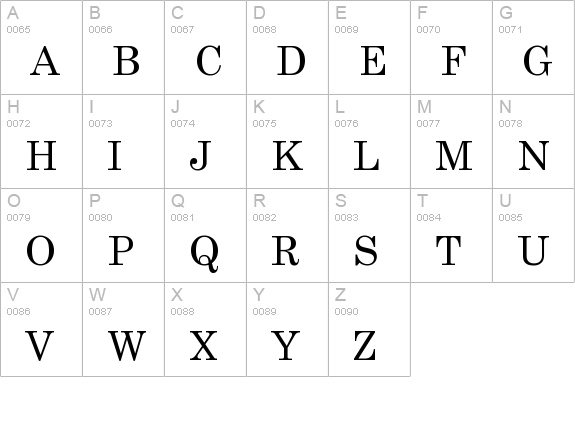
Century font is a timeless and elegant typeface that exudes sophistication and style. Its classic serif design makes it perfect for all types of projects, from formal invitations to professional documents. With its clean lines and balanced proportions, Century font is easy to read and adds a touch of class to any design. The best part? Century font is available for free download at FontsMarket.com. This means you can easily access this versatile and beautiful font for your projects without any cost. Whether you're a designer, writer, or just someone looking to enhance your documents, Century font is a fantastic choice that won't break the bank. Download it today and elevate your designs with this stunning and free font.